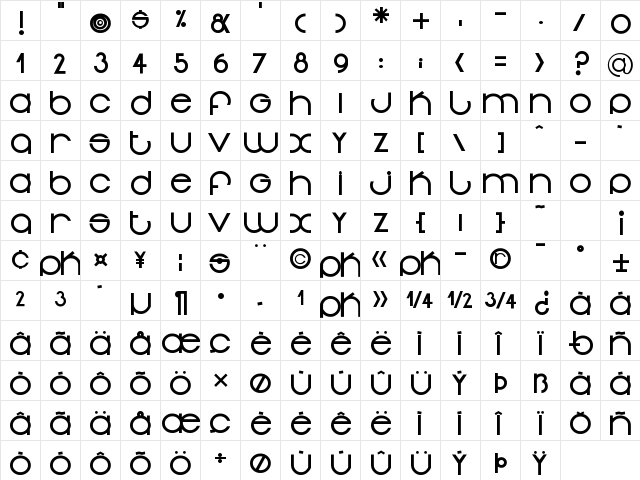
vip?rine Regular
| Foundry | paintblack |
| Designer | paintblack |
Design Context for vip?rine Typeface
vip?rine offers clean, dependable letterforms without strong stylistic allegiance, making it a practical choice for designers who need flexibility.